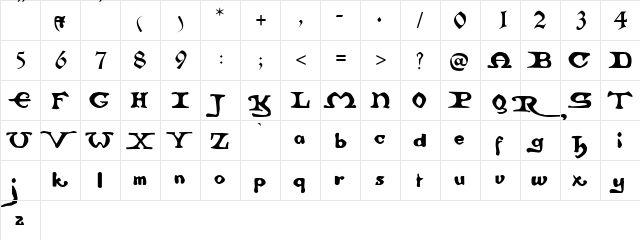
Malebroche Regular
Design Context for Malebroche Typeface
Malebroche is a composed and adaptable typeface that performs quietly and consistently across a wide range of design contexts.